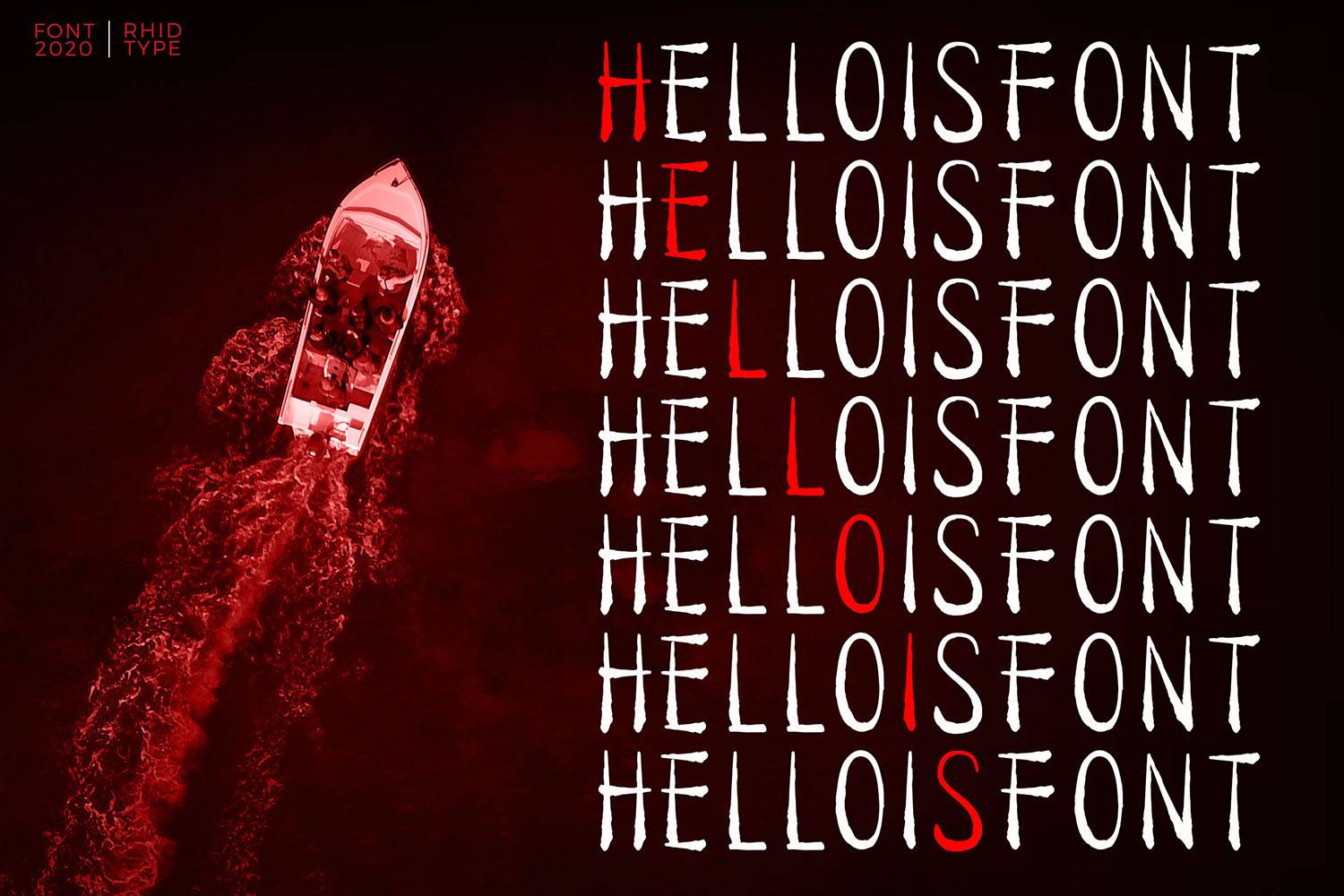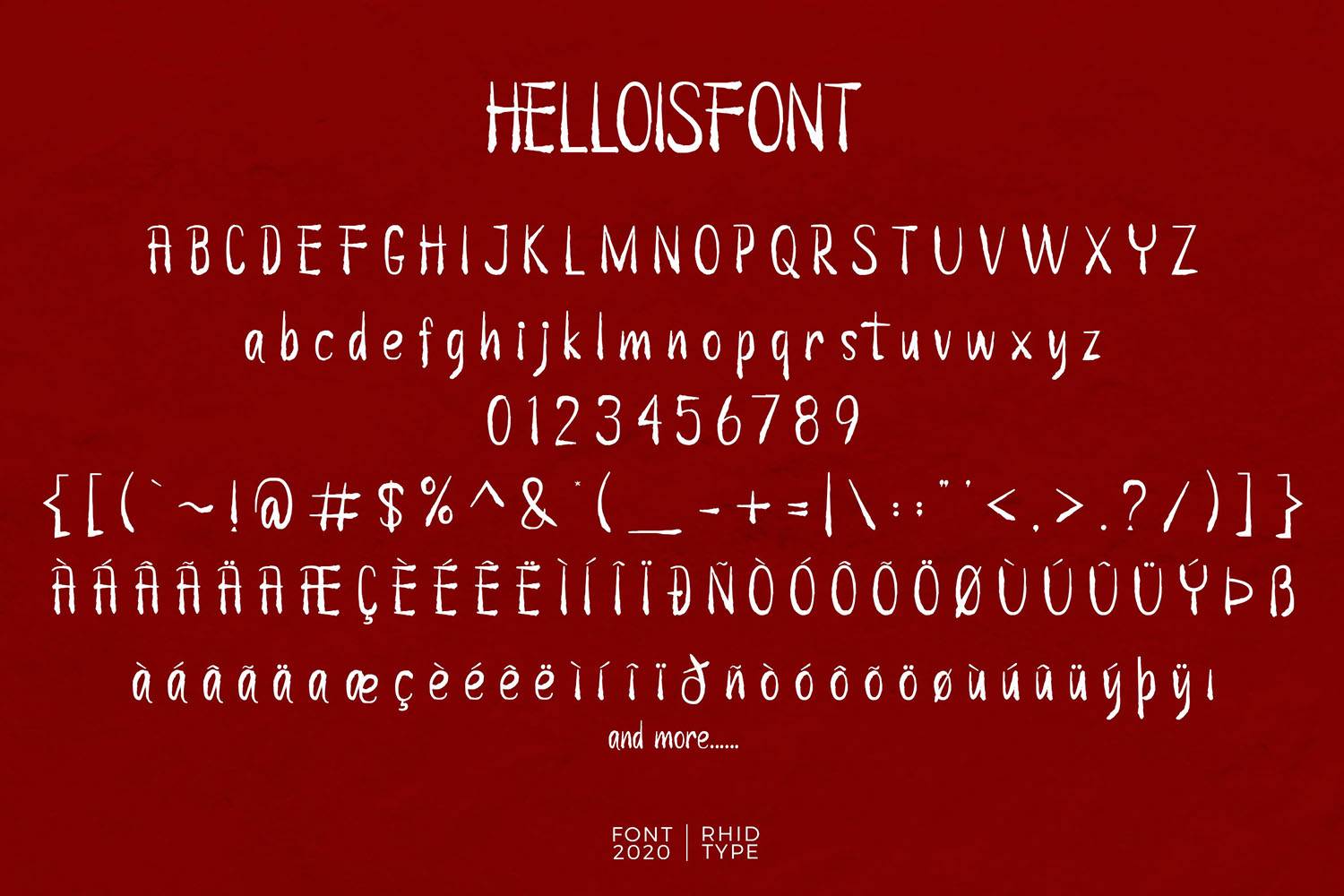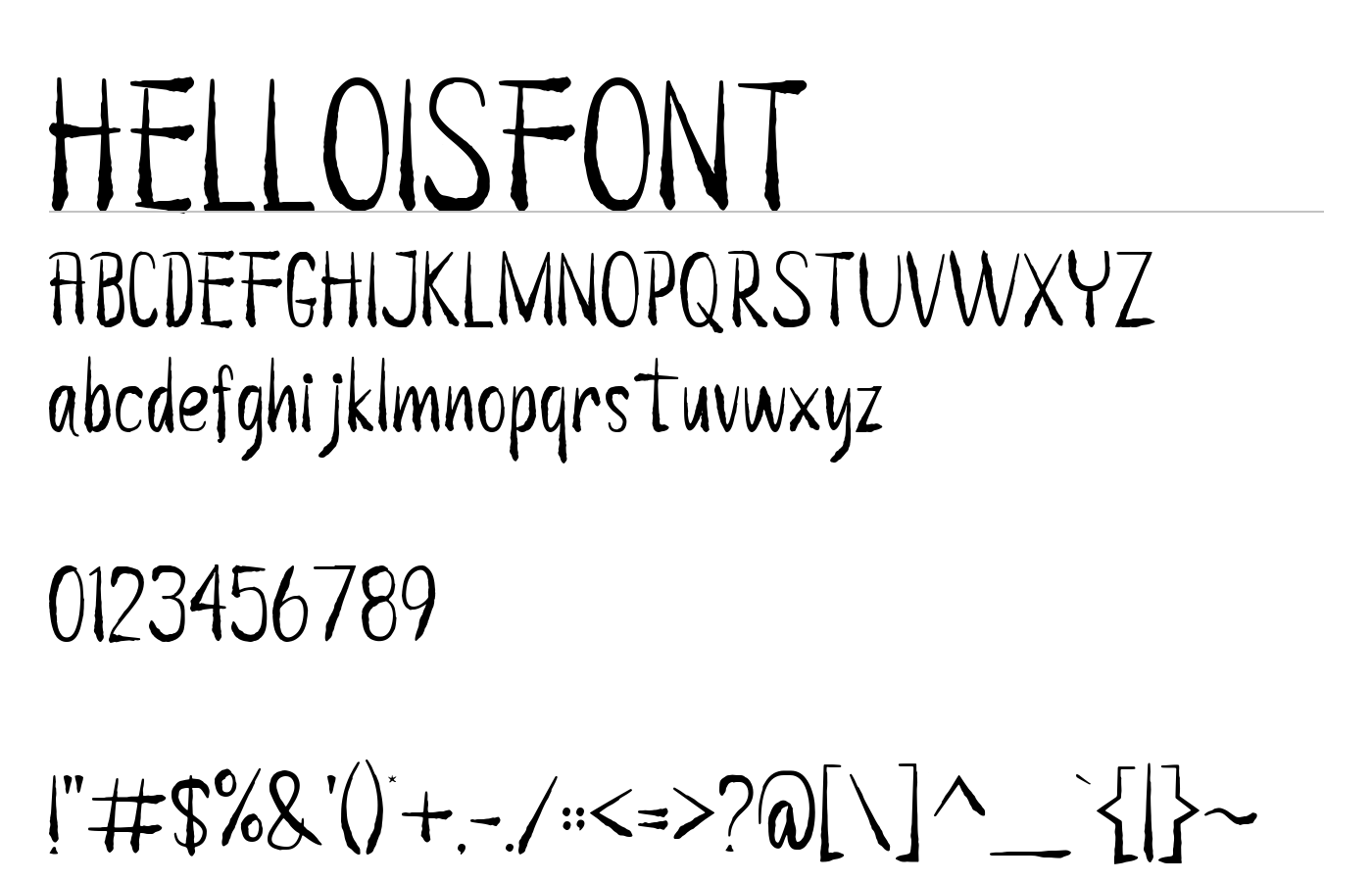
Helloisfont is a narrow, hand-drawn sans serif font with a quirky and casual feel, featuring uneven strokes and a slightly rustic texture that adds character. Its tall, slender letterforms and irregular shapes create a playful yet approachable look, making it ideal for creative projects, informal branding, and designs seeking a personal touch. This font works best in headlines, posters, and fun editorial layouts where a unique, organic style is desired.
Helloisfont Font
About Helloisfont Font
| Font family | Helloisfont Font |
| Release date | 2020-12-07 |
| Designer | REPI HILMANA |
| Trademark | RHIDTYPE |